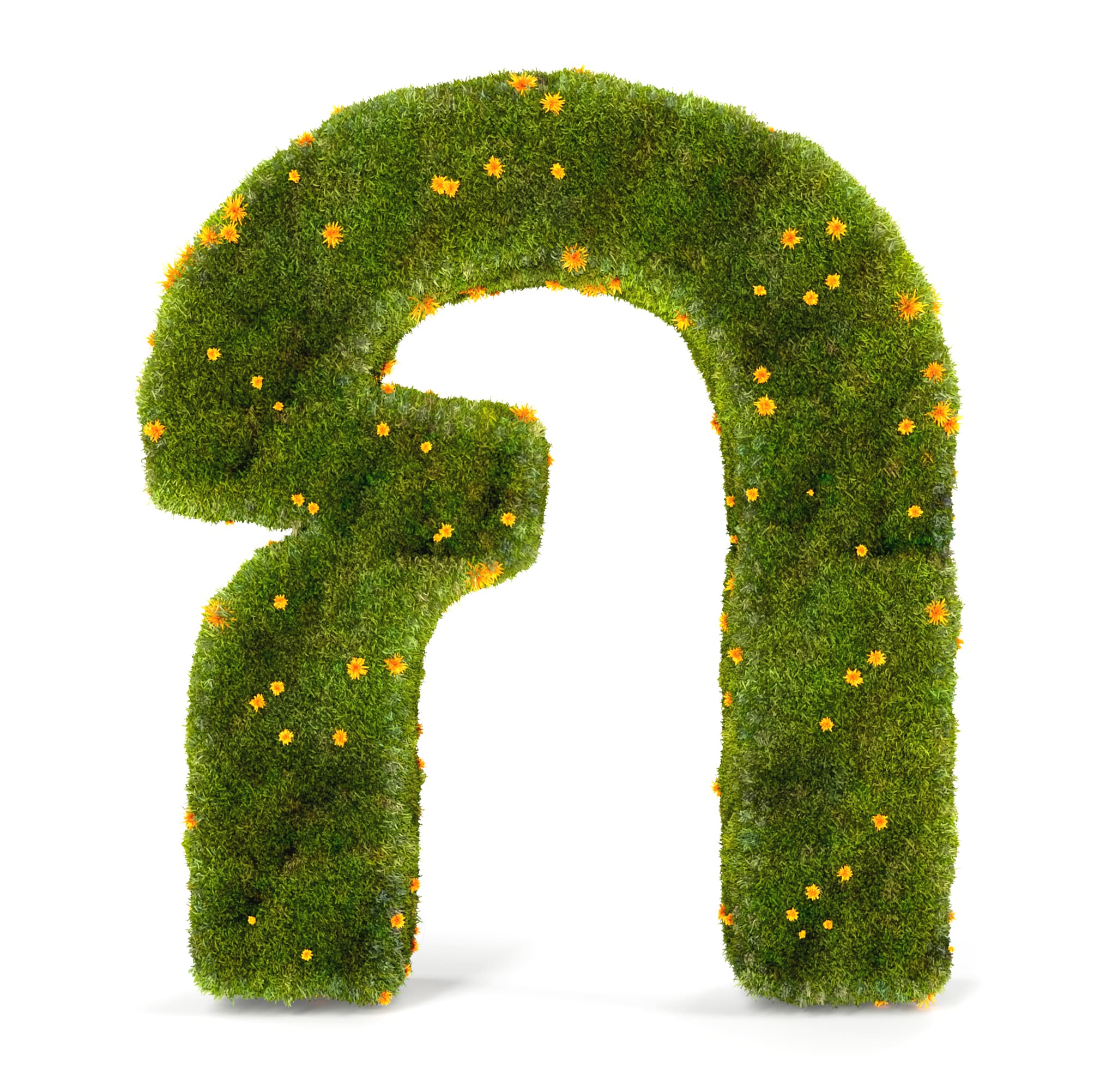
Sharp Earth ภาษาไทย
"Sharp Earth is a new multi-script sans serif typeface spearheaded by Lucas Sharp and drawn in collaboration with a team of local experts from around the globe. The Sharp Earth family covers nearly every latinized language script on Earth in addition to Greek, Cyrillic, Arabic, Thai, Devanagari, and Japanese. As a contemporary expression of the international style, Sharp Earth is unified by a forward-looking aesthetic paradigm that has been drawn by and for a truly global design culture. Sharp Earth doesn’t neatly exist in any single sub-genre of the Sans Serif pantheon. Rather, it brings together core aspects of disparate sub-genres of sans serif type that share an emphasis on warmth, pragmatism, and utility.
The loopless variant of Sharp Earth Thai, crafted by Cadson Demak under the leadership of senior type designer Knaz Uiyamathiti, stands as a bold interpretation of Sharp Earth's essence, blending austerity with warmth. Rooted in a year-long project that commenced in late 2021, the design journey of Sharp Earth Thai was marked by an experimental approach, leveraging insights from the era of dry transfer typography and the striking ways Thai and Latin letterforms were set together during this time."
Type Director: Lucas Sharp | Designer: Cadson Demak | Engineer: Calvin Kwok